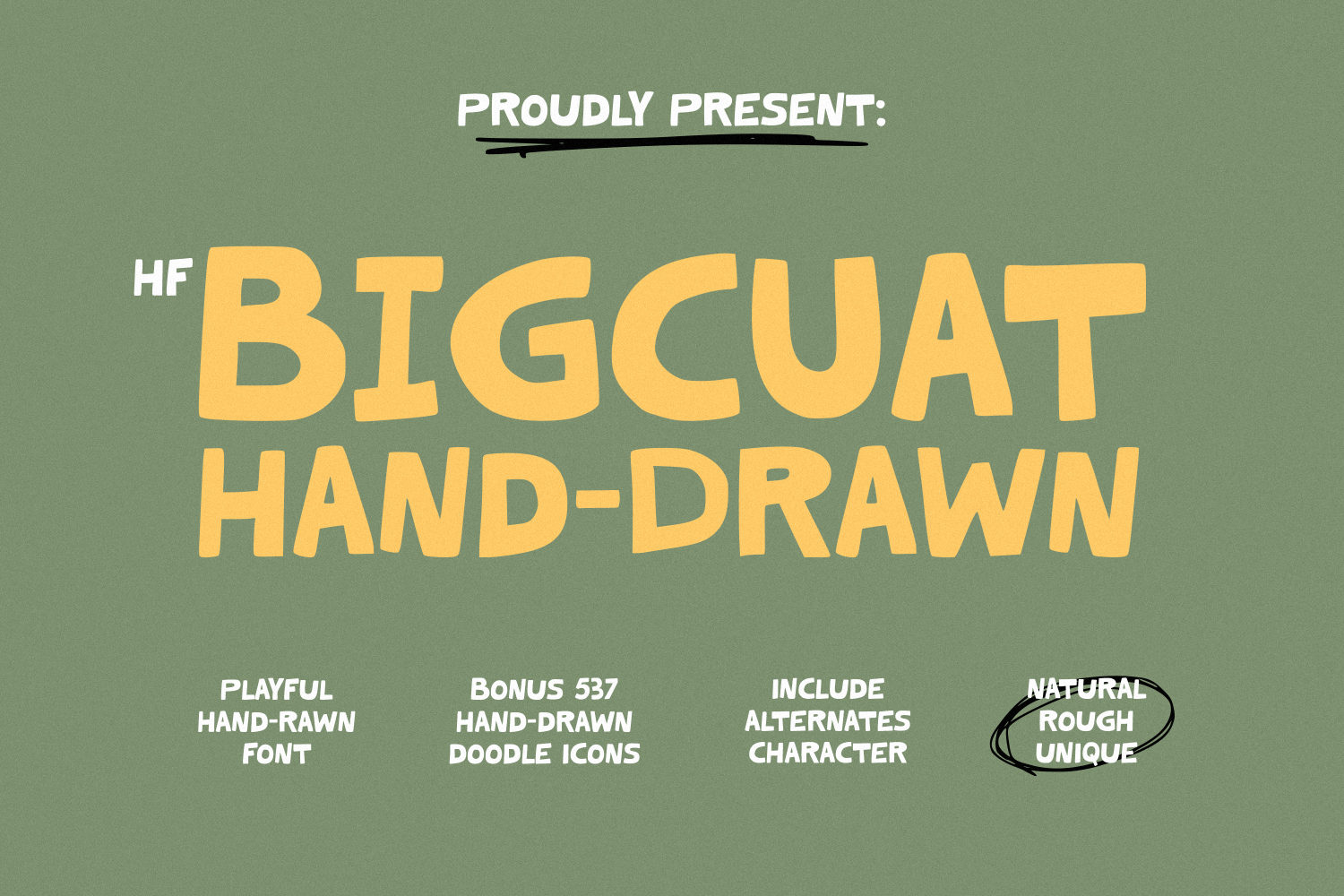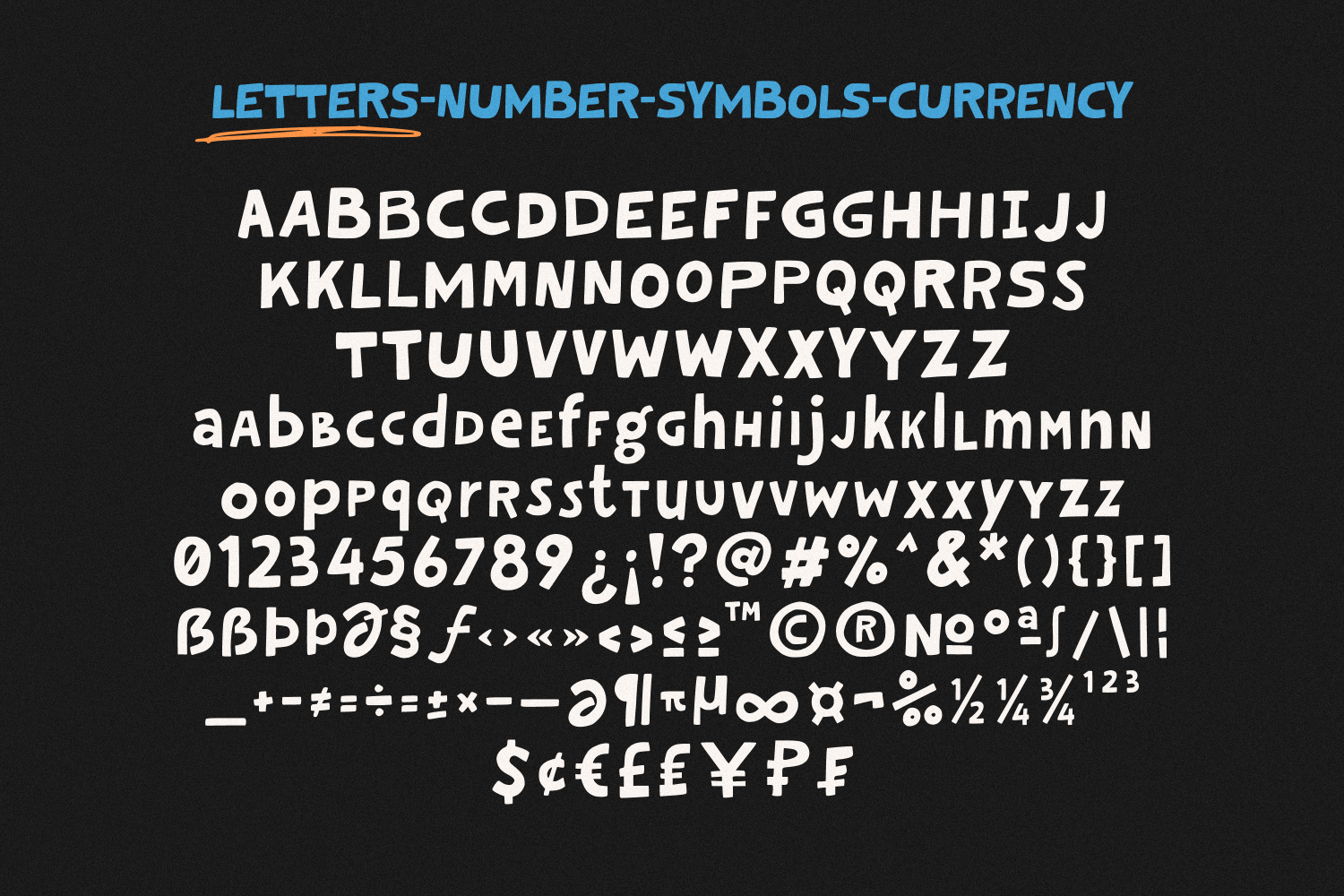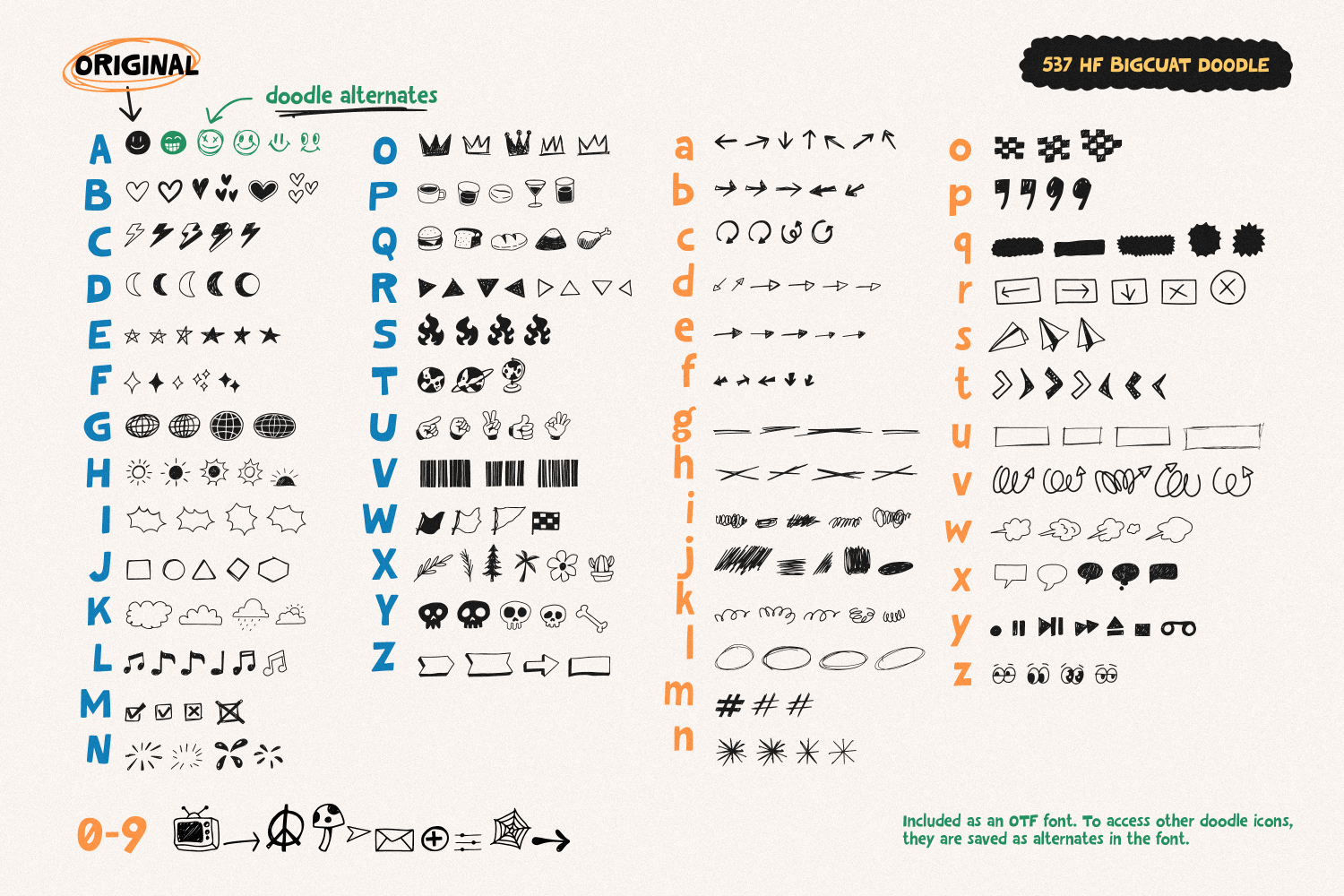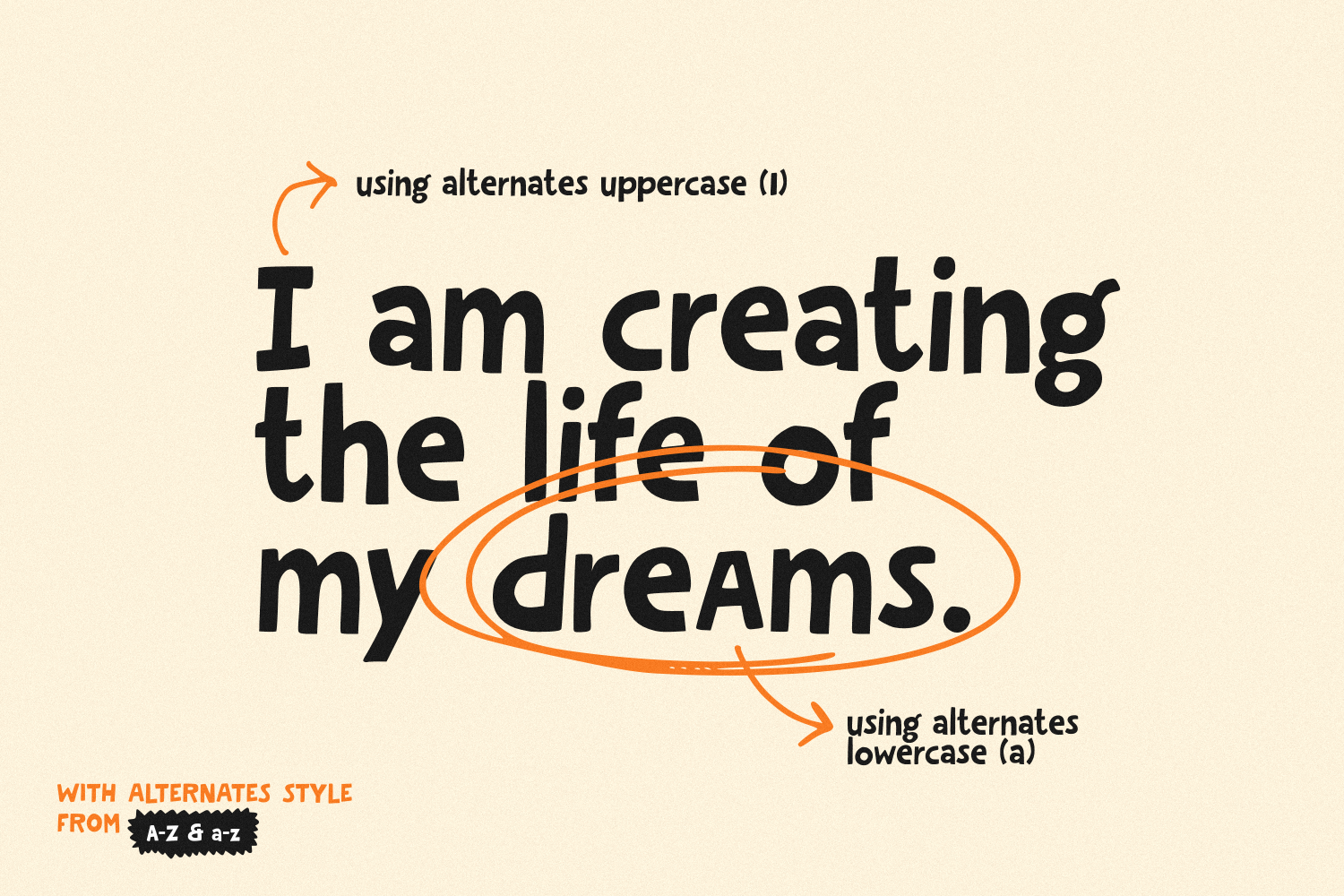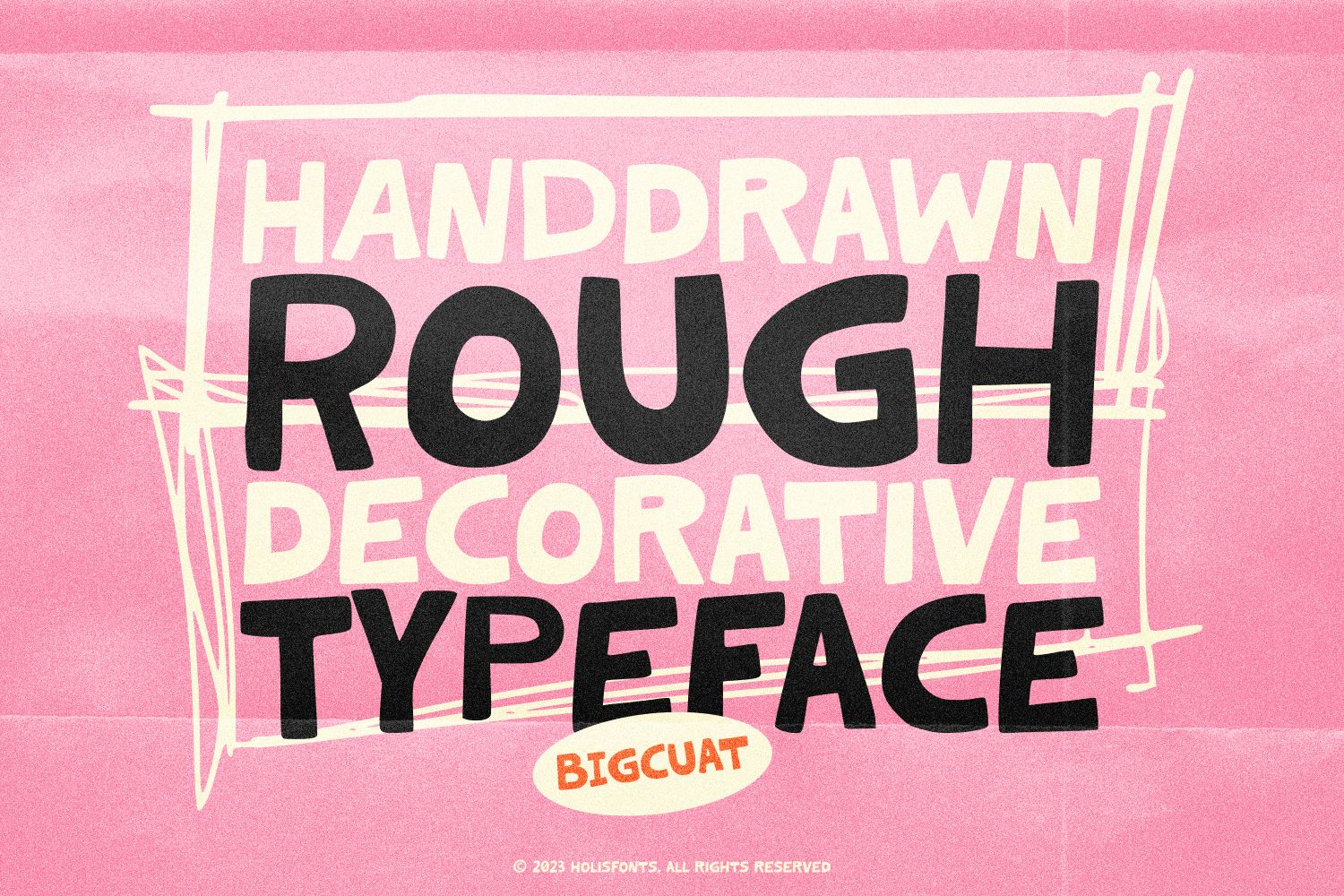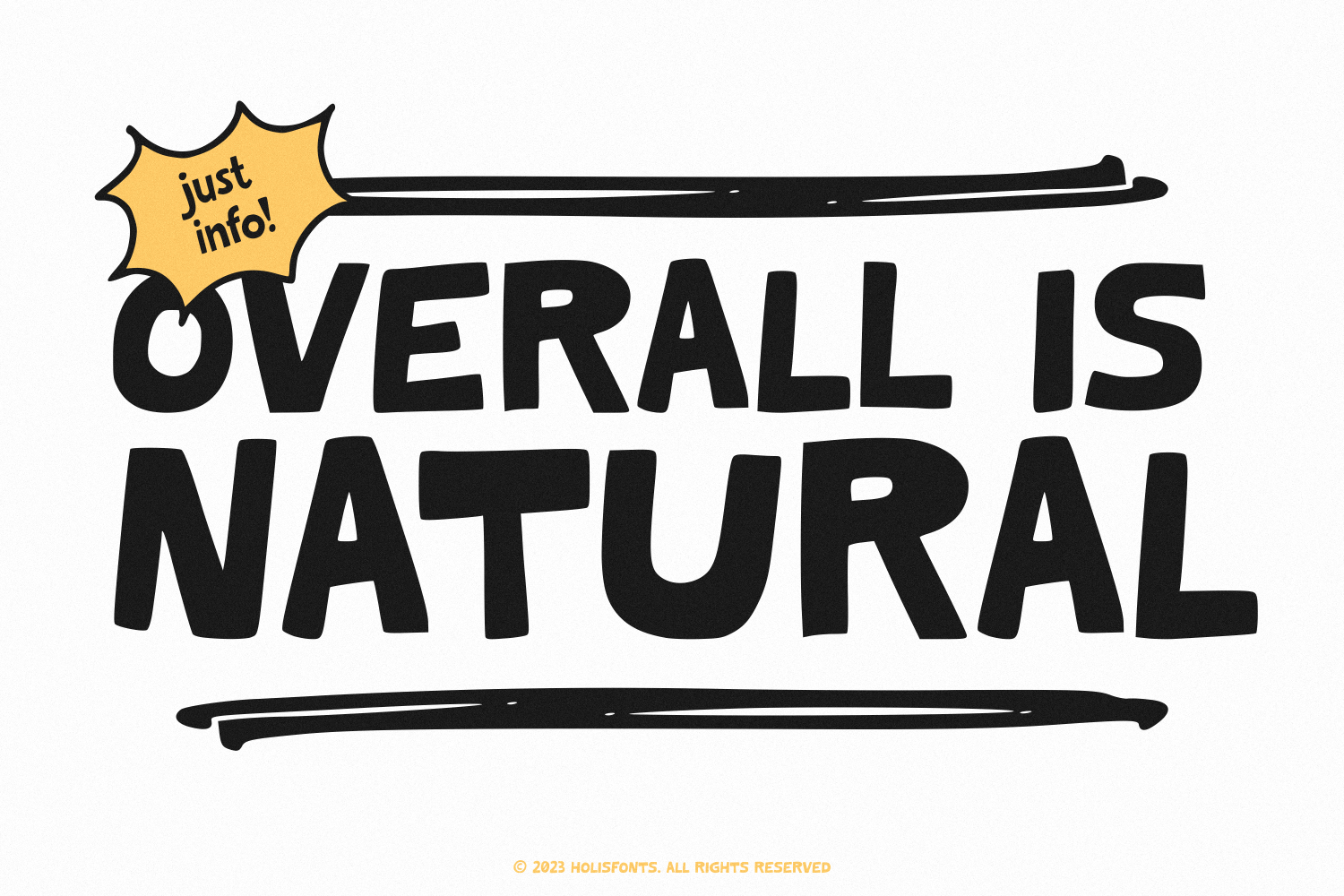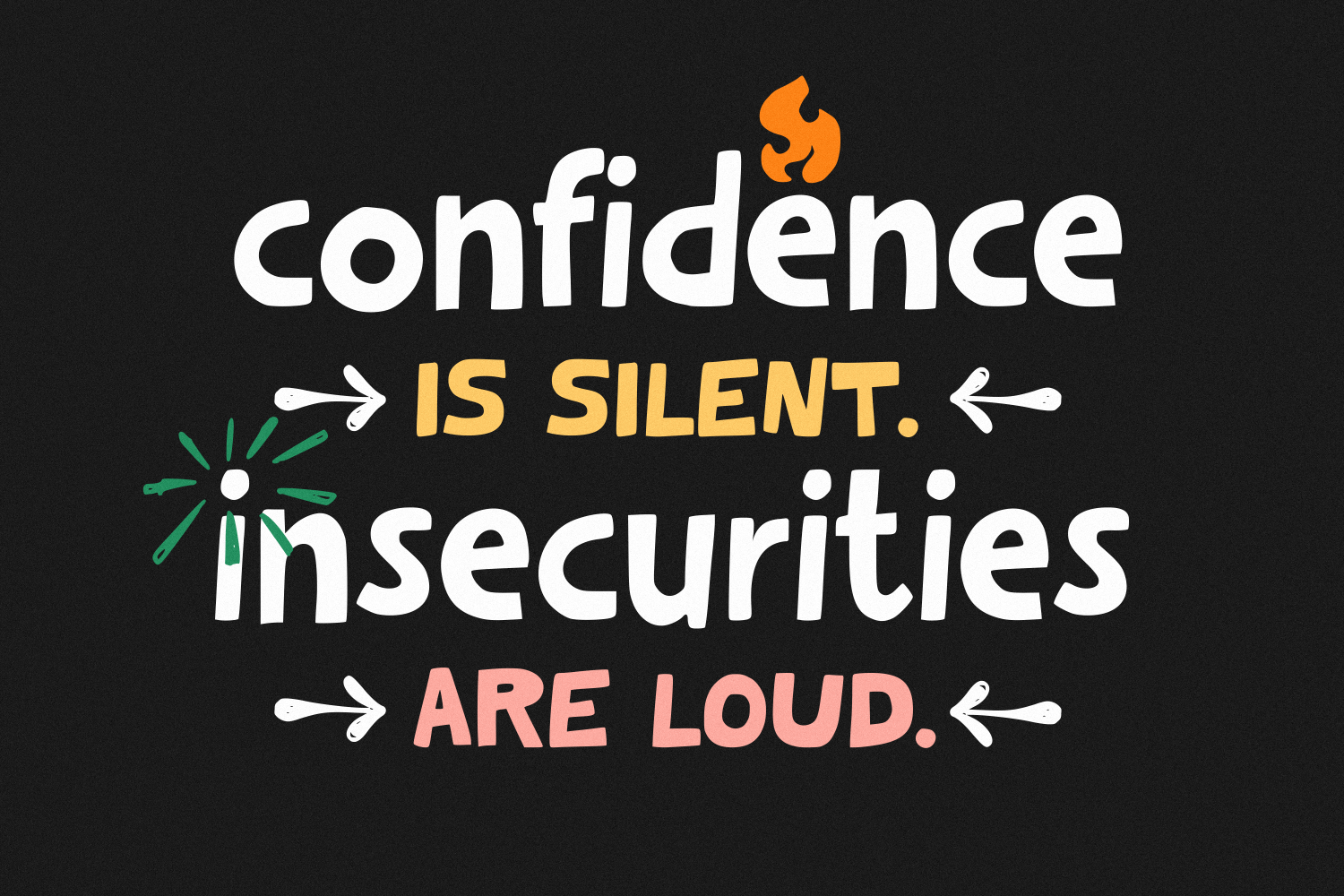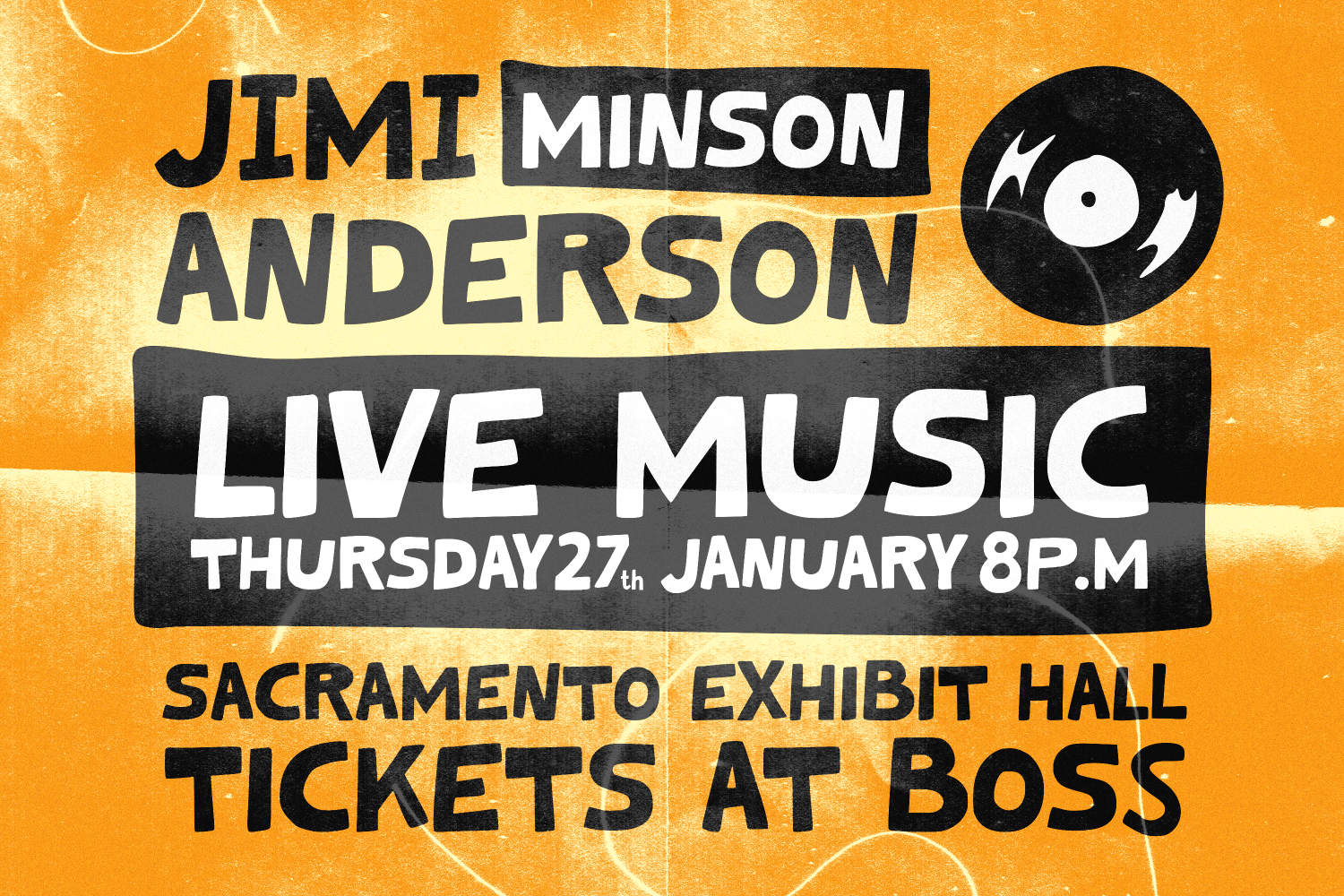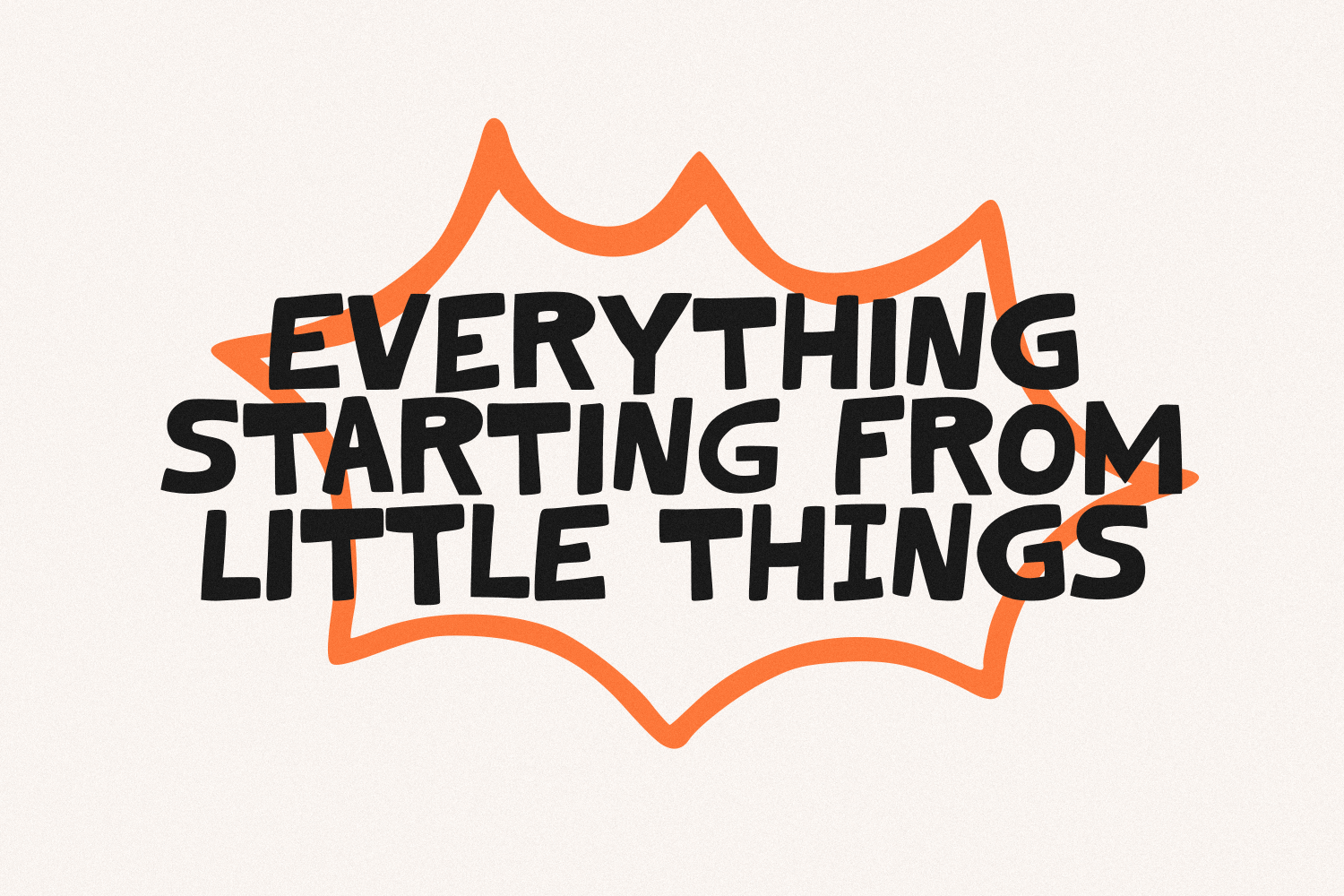
HF Bigcuat Hand Drawn Bold
HF Bigcuat by Holisfonts.com is a thick or bold handwritten cartoon font made from markers with a natural and organic texture and roughness that creates a playful and funny impression for your design.
HF Bigcuat is available in a natural doodle version which can add creativity to the design you will use.
Uppercase
Lowercase
Doodle version
Alternates
Multilingual Support